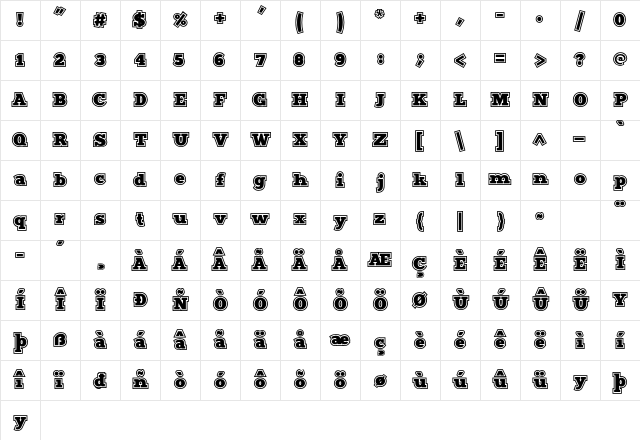
212 Sports Regular
Foundry: 212 Fonts
Designer: Elizabeth McLain
Design Context for 212 Sports
212 Sports brings high-energy athletic personality to the page - its confident, muscular forms are built for impact.